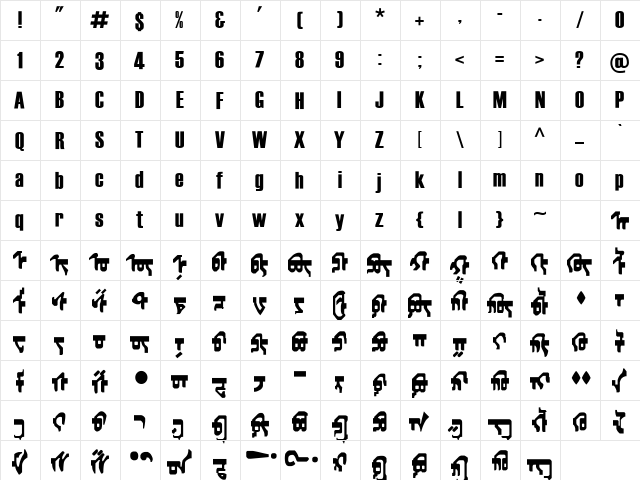
Mongolian Art Regular
Design Context for Mongolian Art Typeface
Mongolian Art offers clean, dependable letterforms without strong stylistic allegiance, making it a practical choice for designers who need flexibility.
Pro Tip: Pair Mongolian Art with a font of contrasting weight or personality to build a more expressive typographic hierarchy.